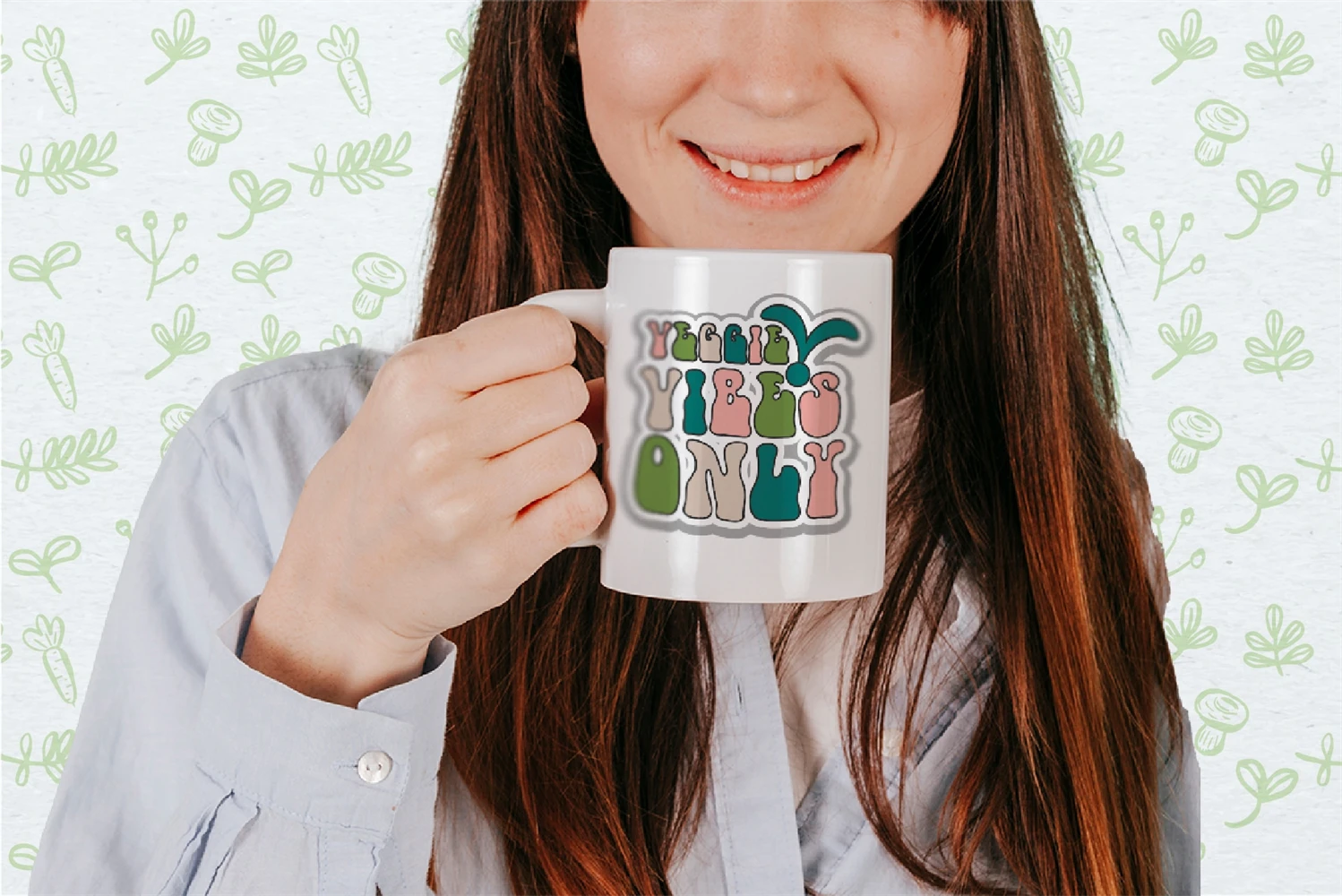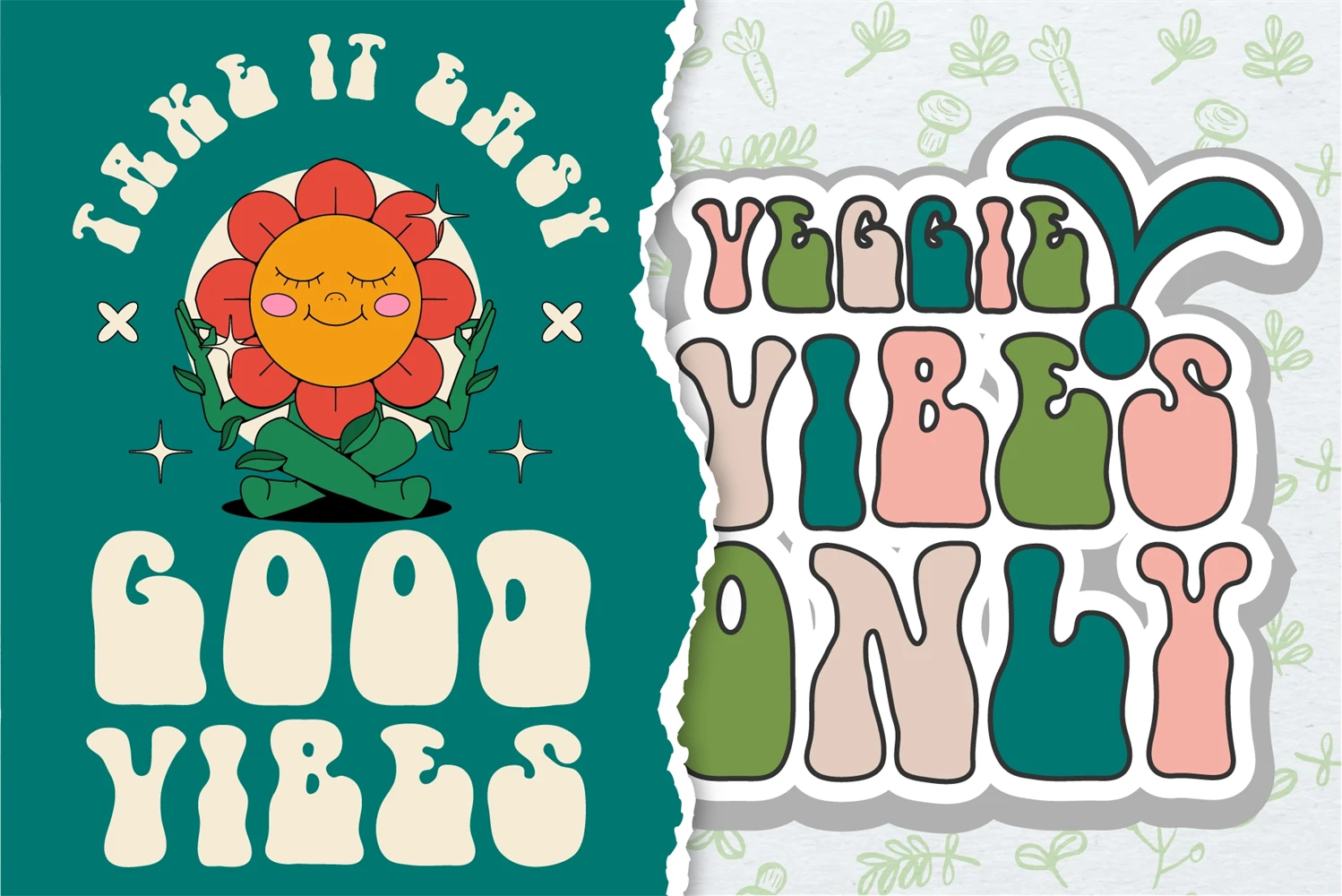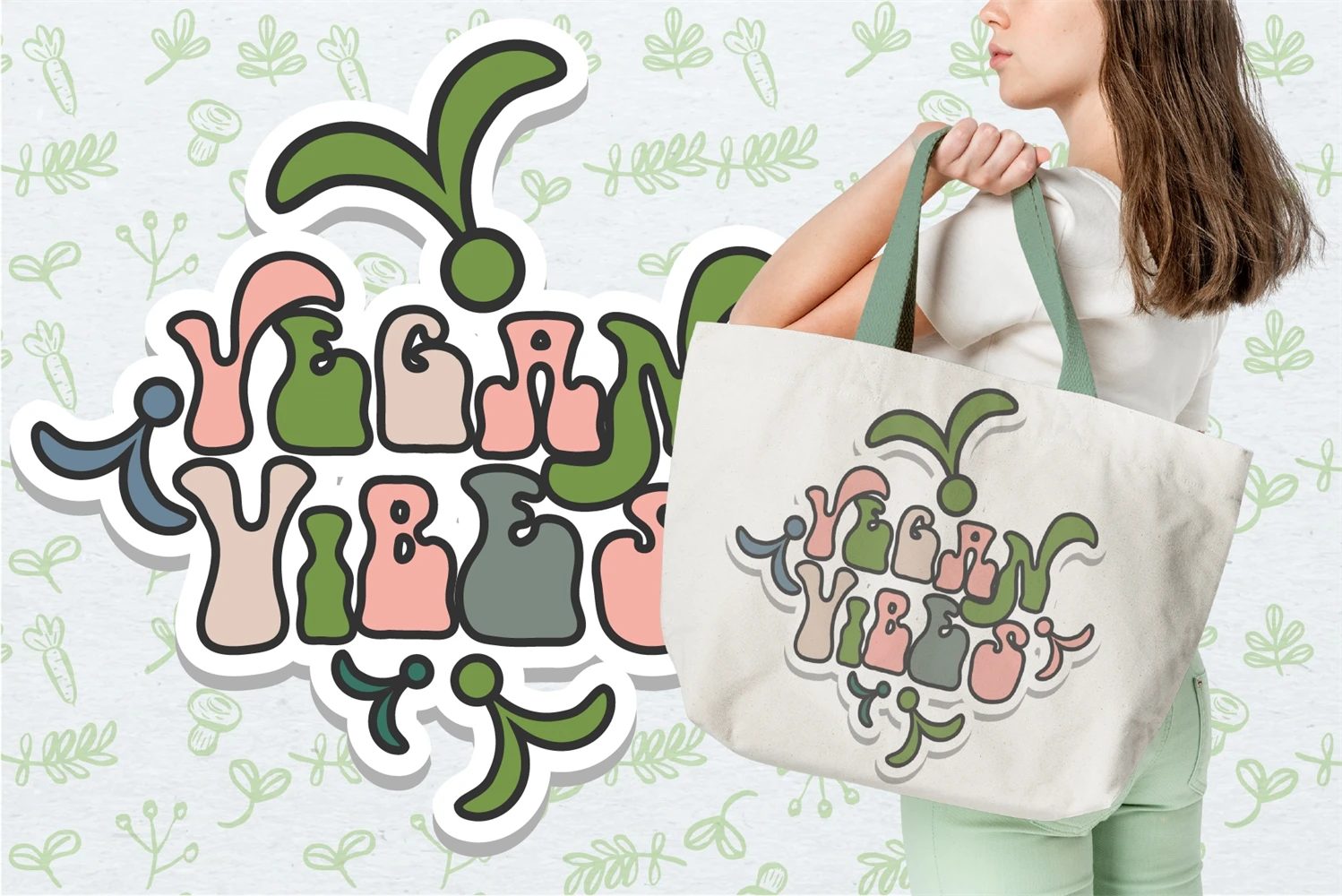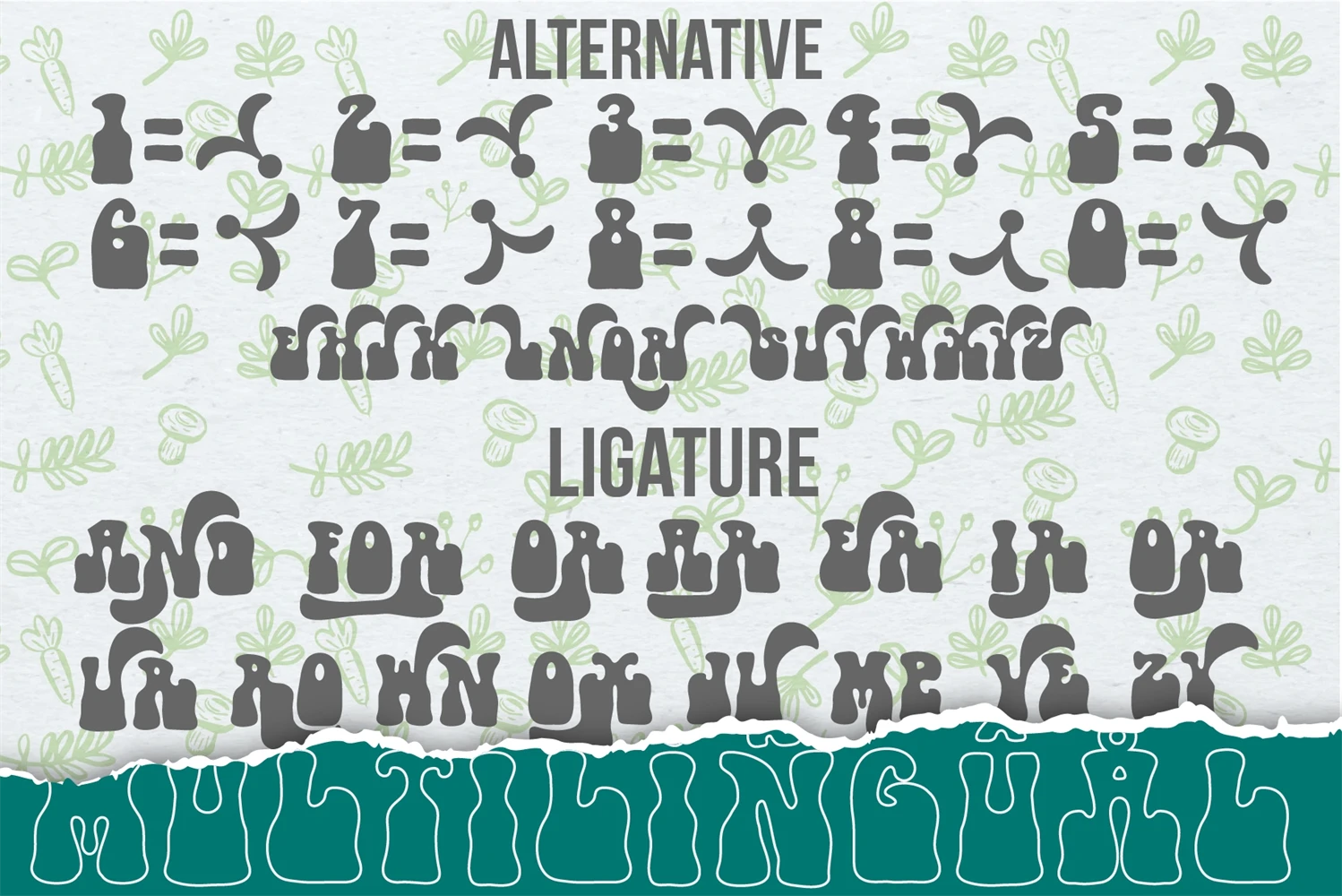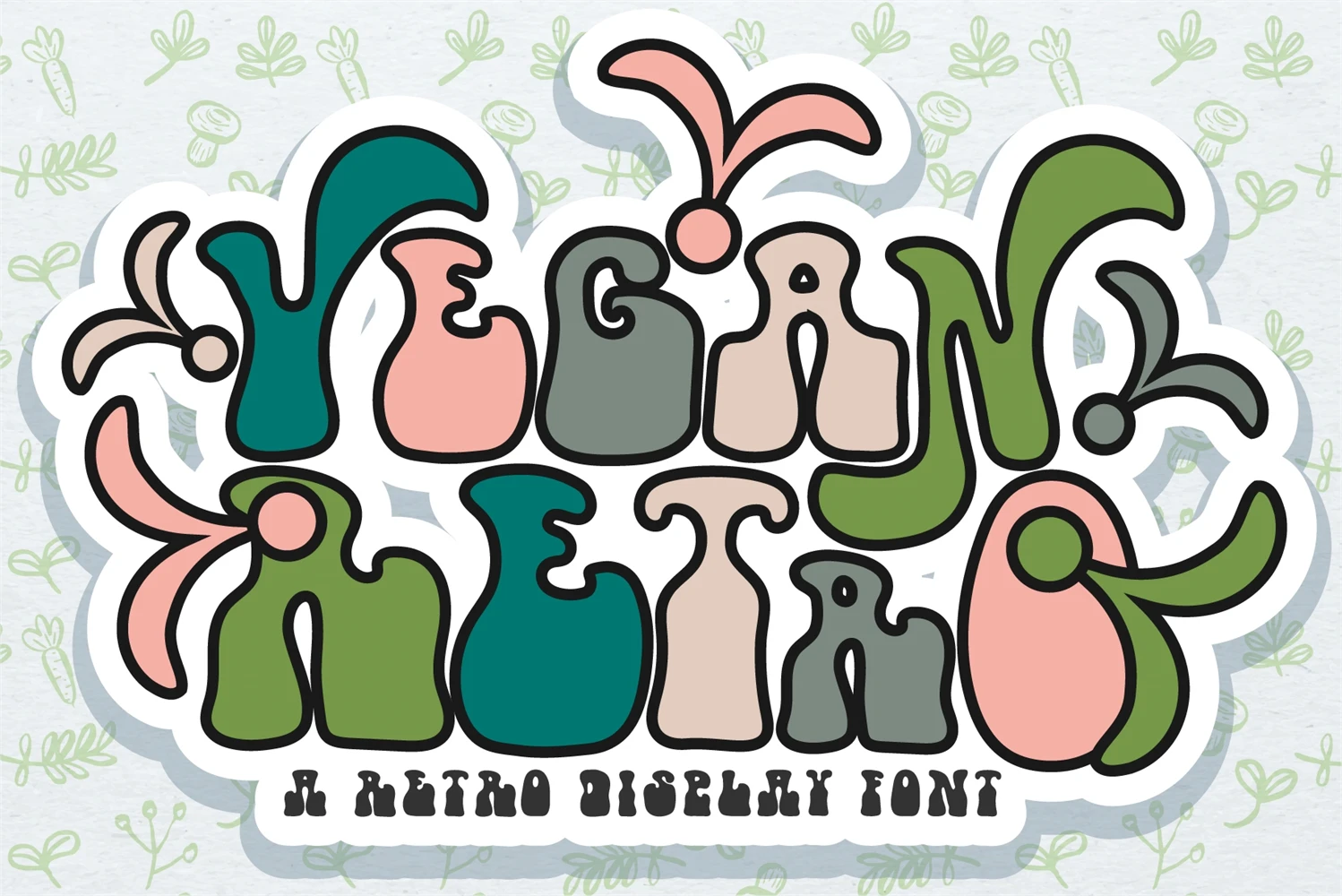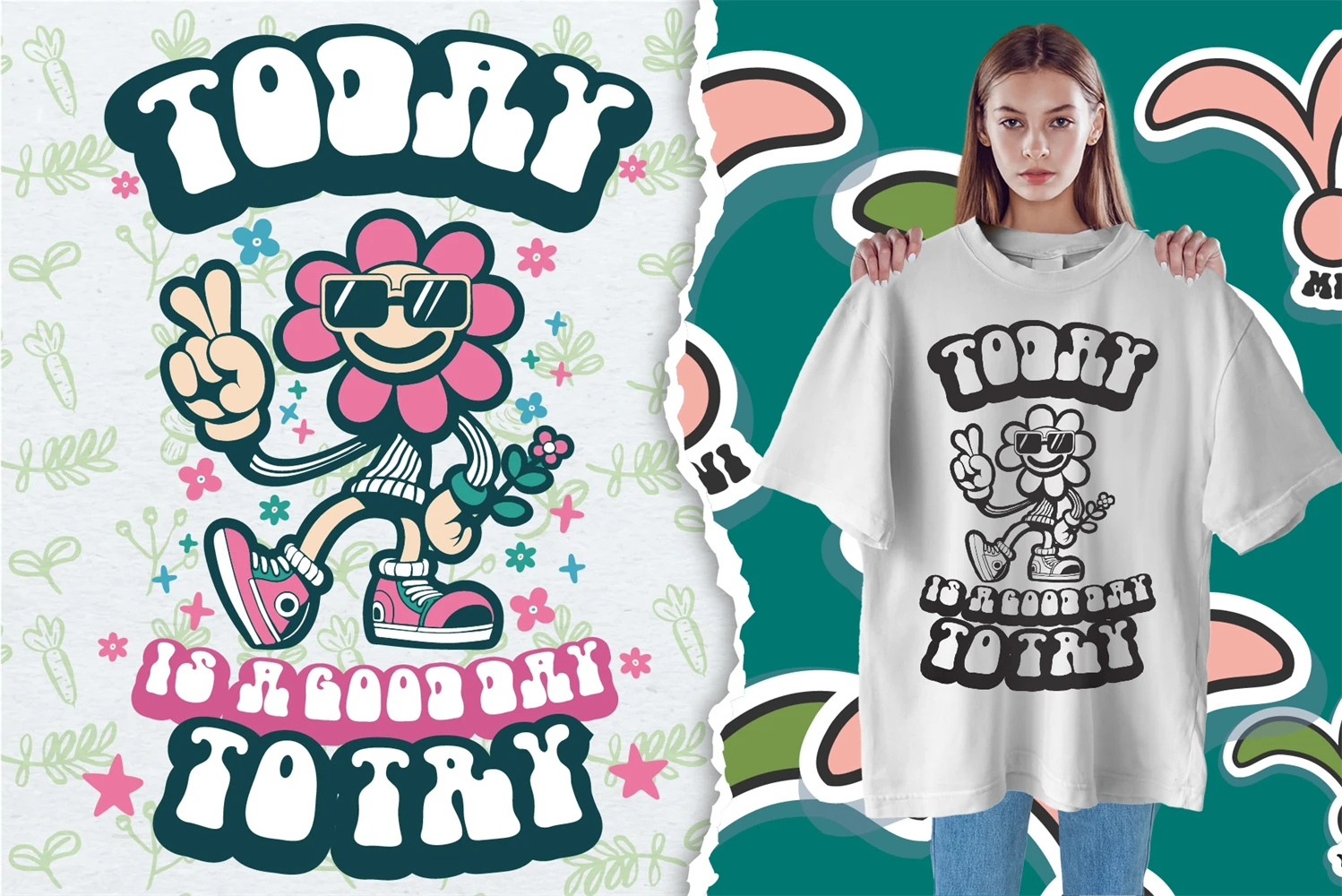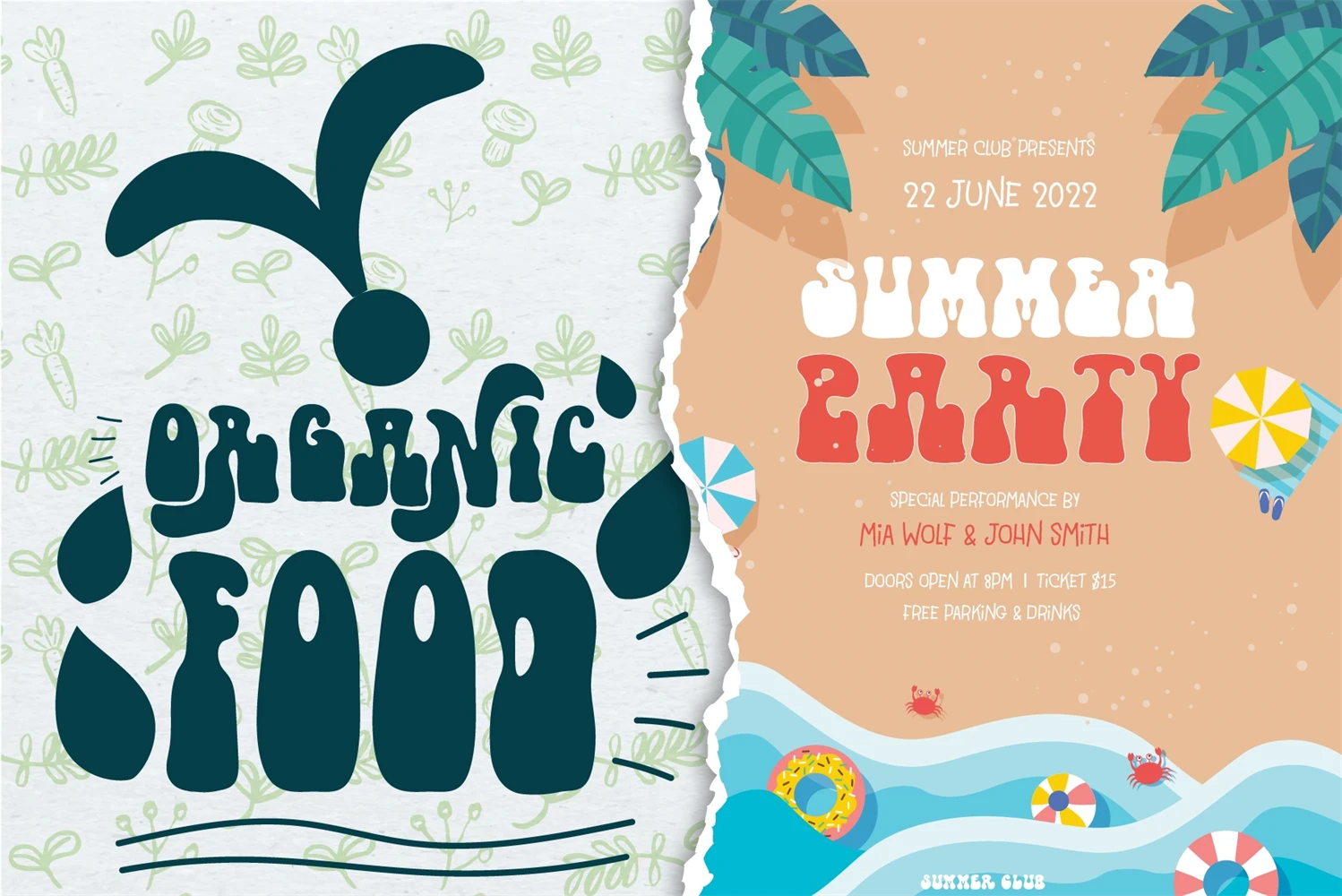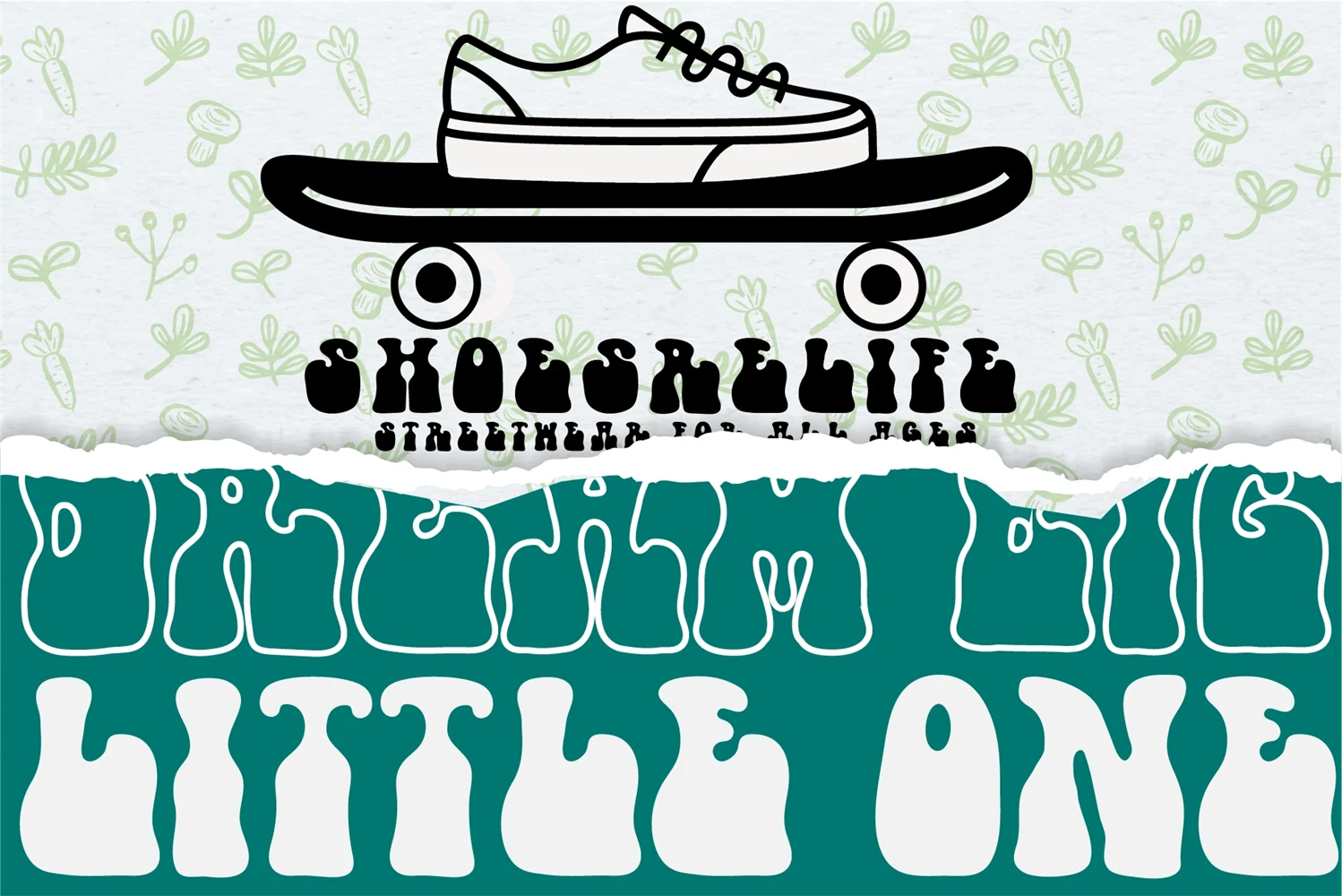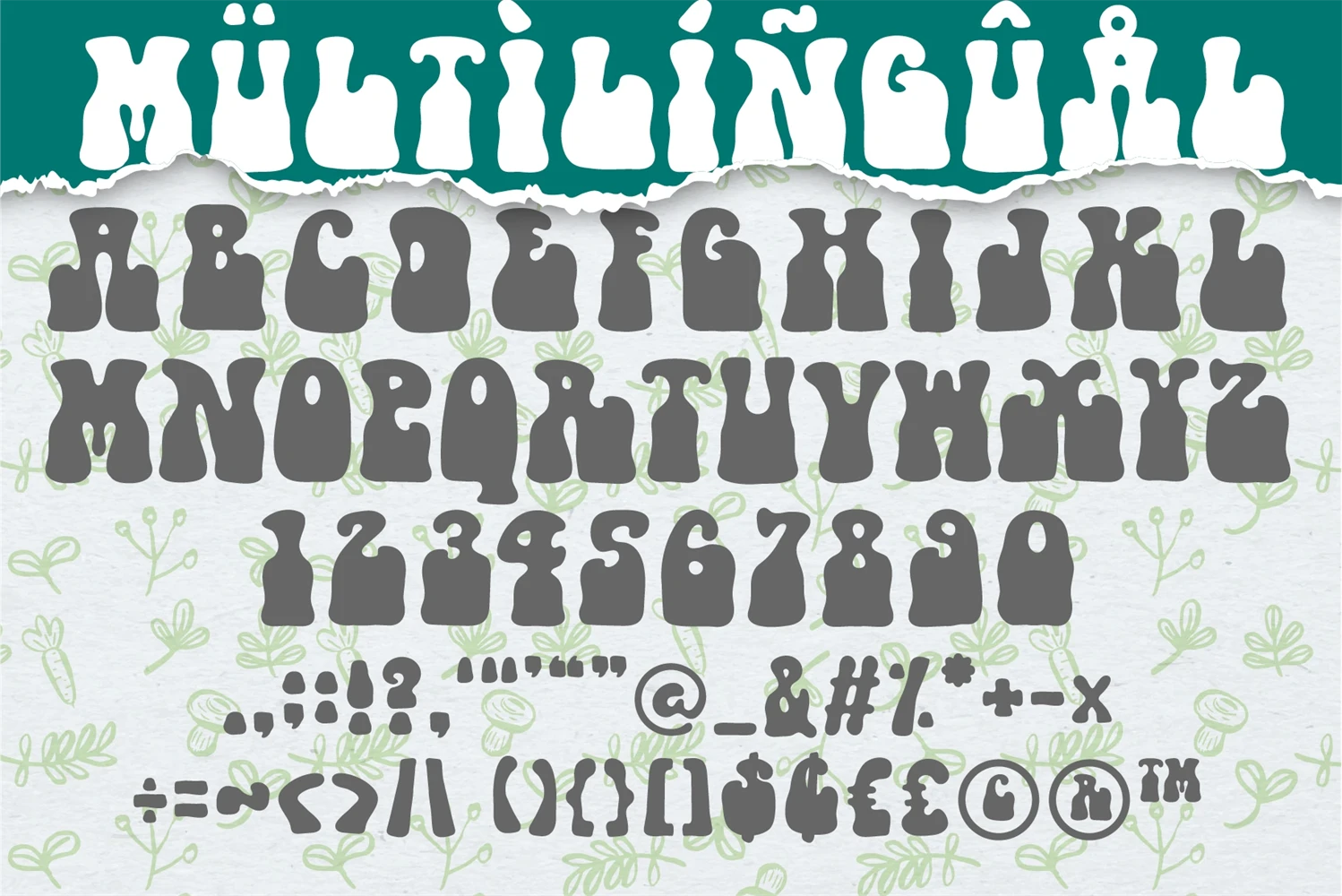
Vegan Retro is a playful and lively display typeface that radiates fun and energy. With its bouncy letterforms and dynamic strokes, it captures the essence of retro grooviness. Ideal for headlines, posters, and branding projects.